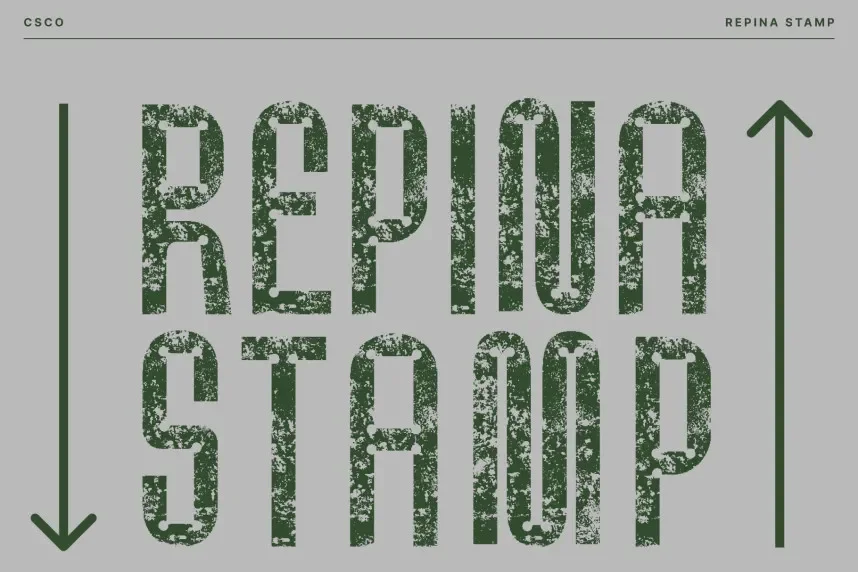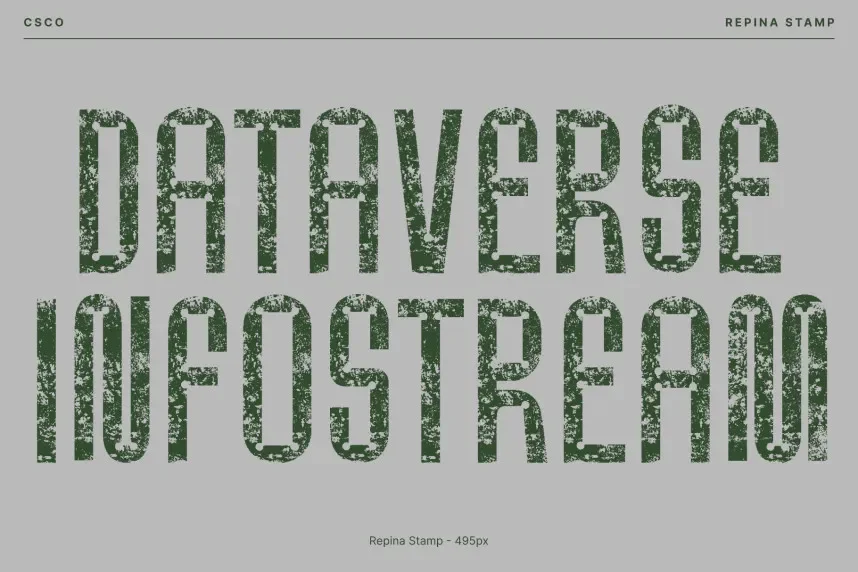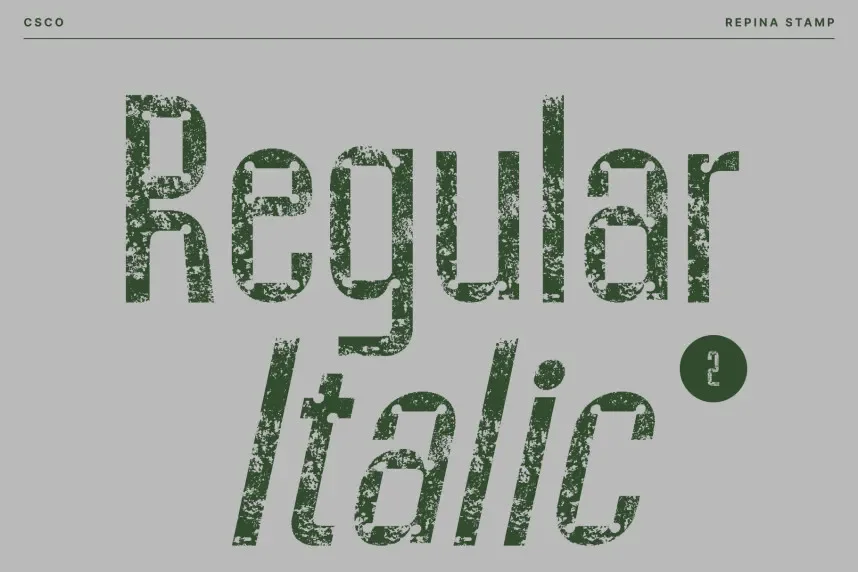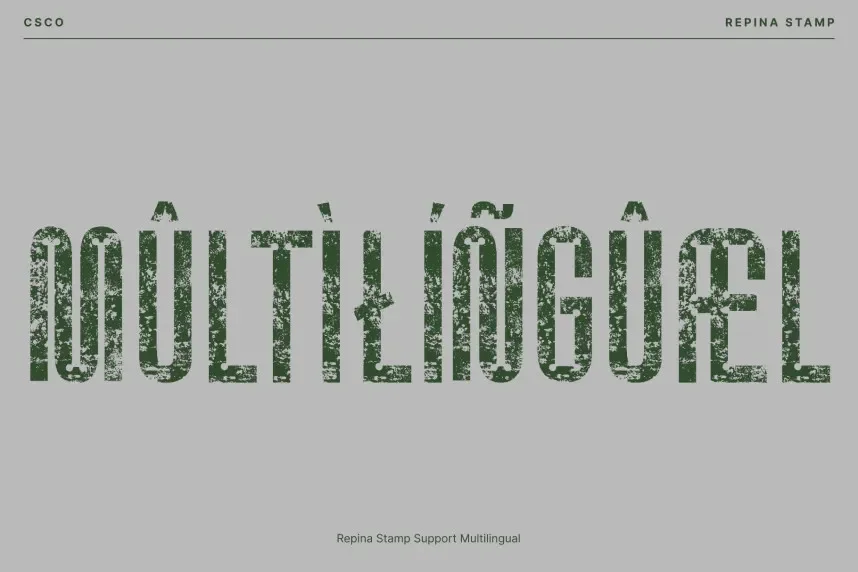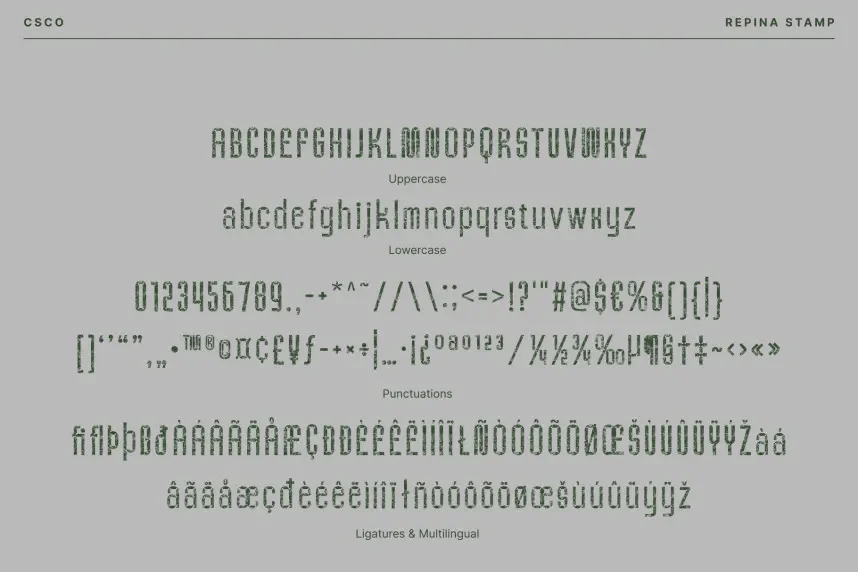
Repina Stamp Font is a distressed font that adds a touch of vintage character to any design. It’s perfect for projects requiring a rough, stamped look while maintaining legibility.
Repina is a stamp-style display font with irregular edges, mimicking the effect of old, worn-out stamps. The uneven strokes and rough texture give it a distinctive, nostalgic appeal that’s perfect for designs aiming to evoke a retro or grunge aesthetic.